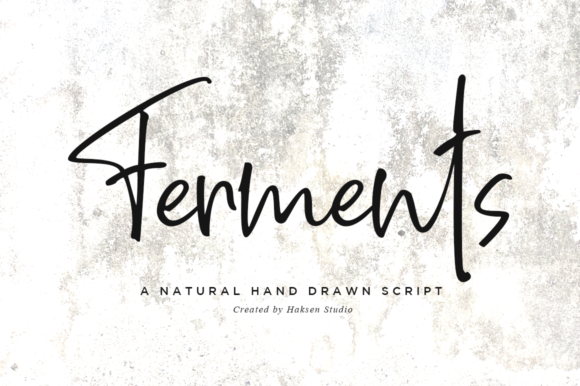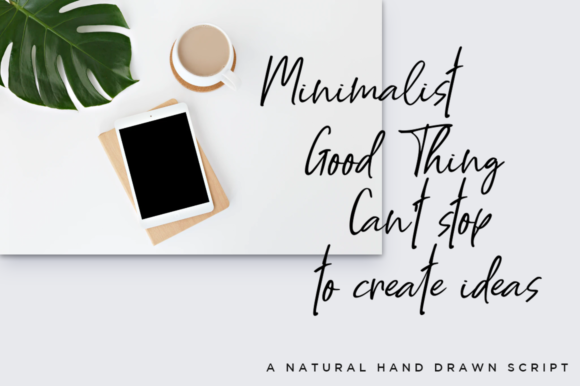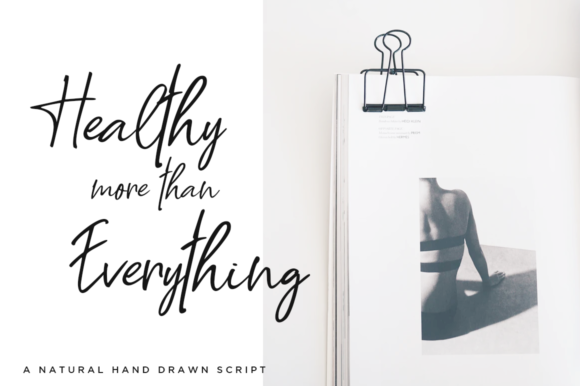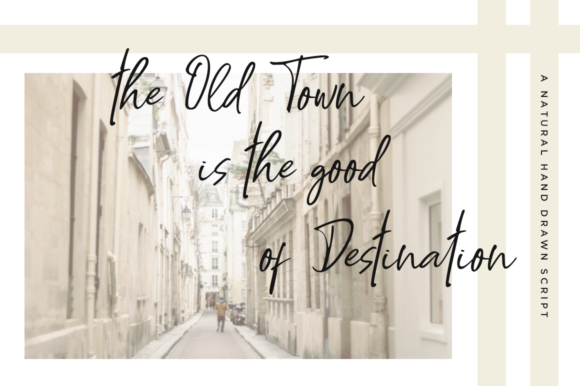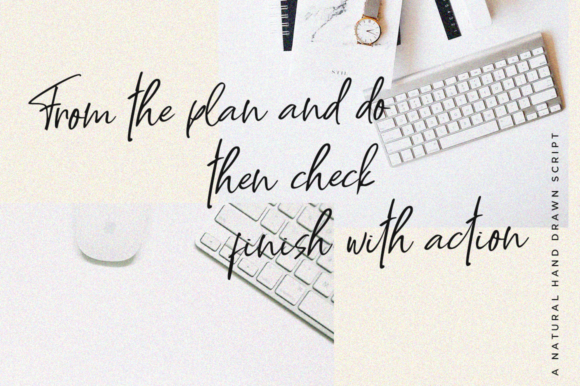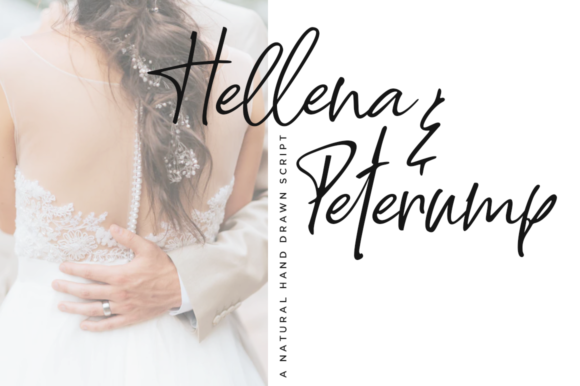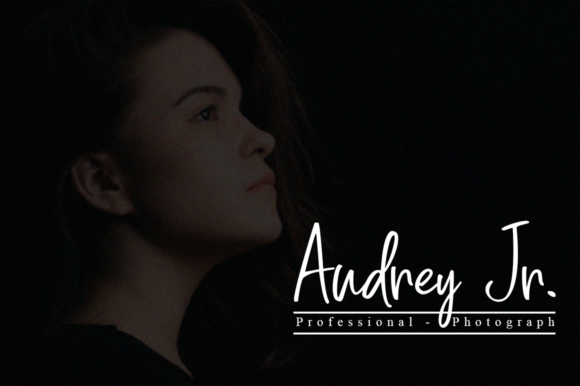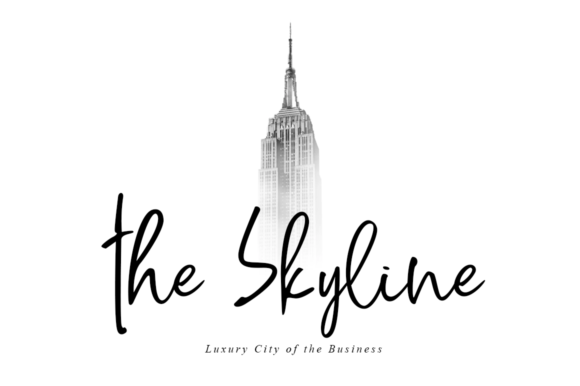
Ferments Font
About Ferments Font
Ferments feels equally friendly and charming. This stunning handwritten font is a stylish homage to classic calligraphy. It features a varying baseline, smooth lines, gorgeous glyphs and stunning alternates.